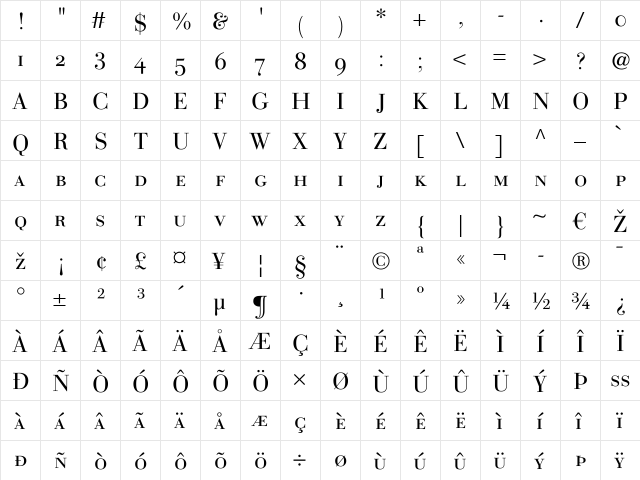
LTGianotten SC Light Regular
| Designer | Antonio Pace |
Design Context for LTGianotten SC Light Typeface
LTGianotten SC Light offers clean, dependable letterforms without strong stylistic allegiance, making it a practical choice for designers who need flexibility. The delicate stroke weight brings airiness and refinement to layouts.